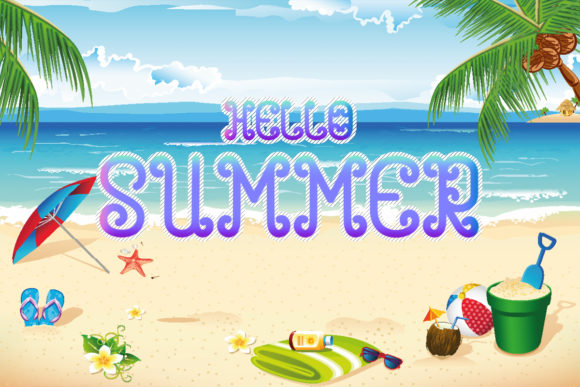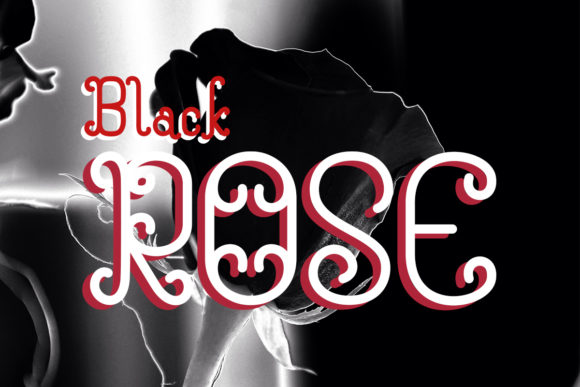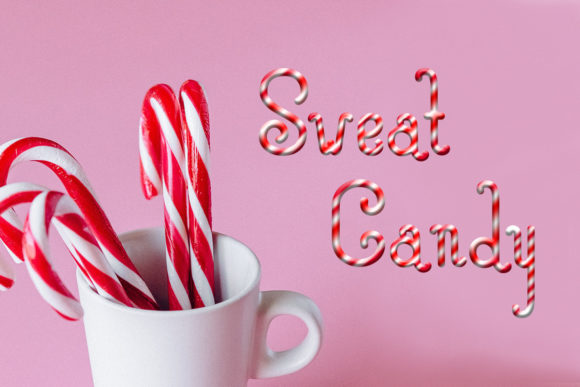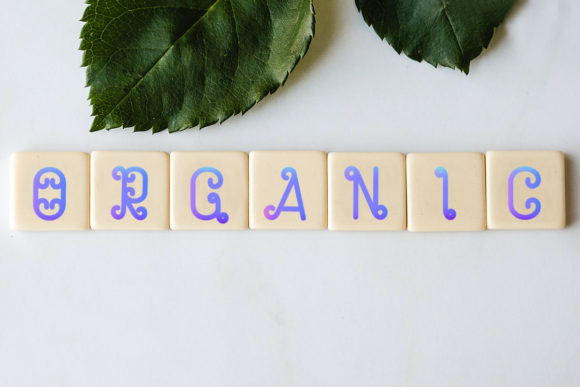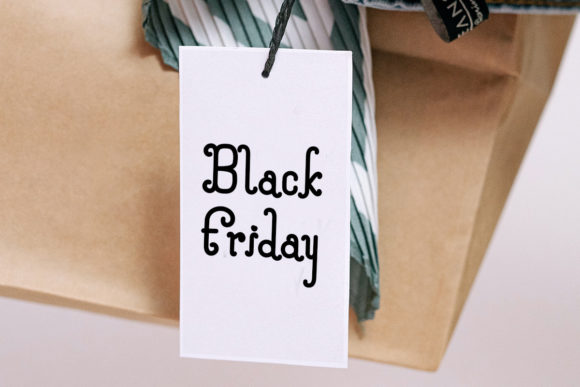
About Black Alliga Thor Font
Black Alliga Thor is a beautiful and magical script font. Its well balanced characters are perfect for various invitation cards, social media posts, advertisements, product packaging, designs, labels, and more.